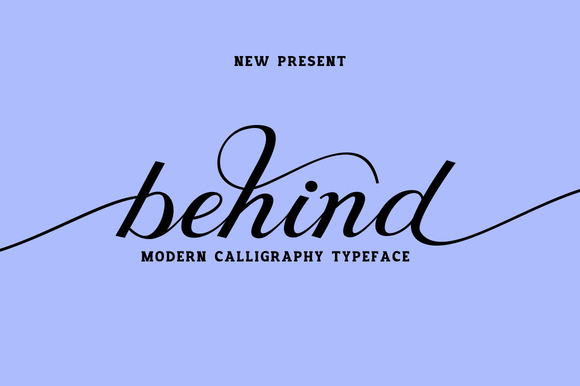
Behind Script Font
Behind Script
Behind Script a new fresh & modern script with a handmade calligraphy style, decorative characters and a dancing baseline! So beautiful on invitation like greeting cards, branding materials, business cards, quotes, posters, and more!!